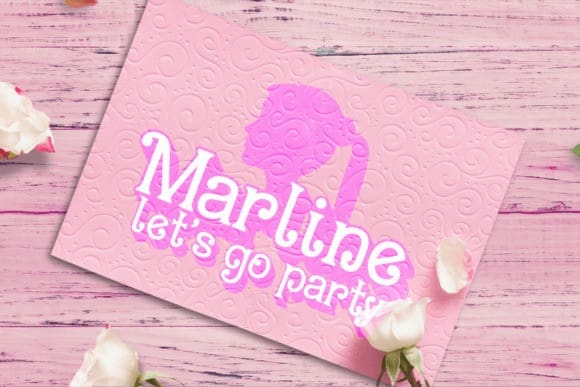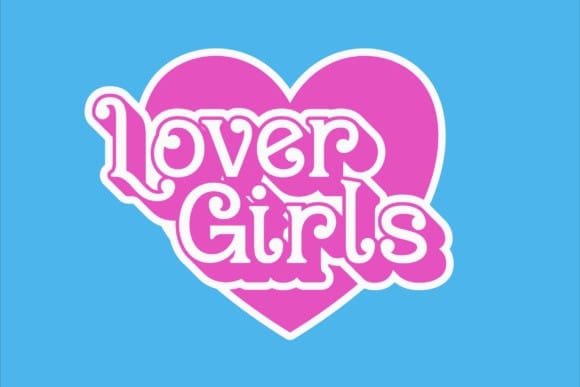
Holabine Font
Holabine Font is a delightful and sweet display font, perfect for projects that need a touch of fun and charm. Its bold and playful style is ideal for kid-friendly designs, candy-themed branding, or cheerful event invitations. With its unique curves and vibrant vibe, Holabine Font brings joy and personality to your creative work. Add it to your collection and make your designs pop with positivity!